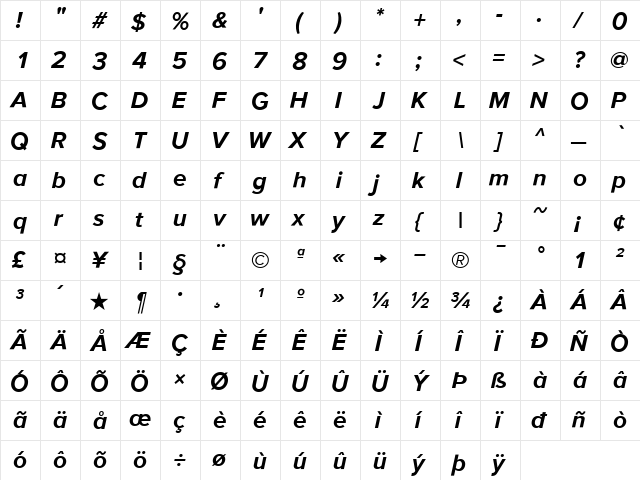
ProximaSansMediumOblique Regular
ProximaSansMediumOblique is a composed and adaptable typeface that performs quietly and consistently across a wide range of design contexts. The slanted form adds forward momentum and visual energy.
Pro Tip: Try ProximaSansMediumOblique for annotation and caption copy alongside an upright companion — the contrast in angle creates a dynamic but ordered typographic system.